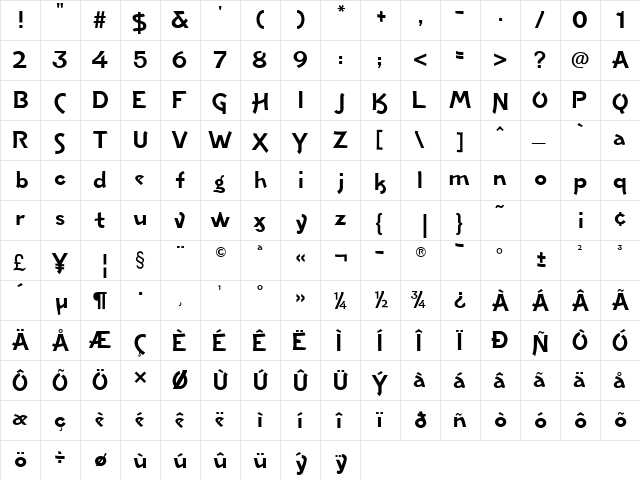
Ebony Regular
Design Context for Ebony Typeface
Ebony offers clean, dependable letterforms without strong stylistic allegiance, making it a practical choice for designers who need flexibility.
Pro Tip: Use Ebony in both headline and body roles to test its range before committing to a single application.